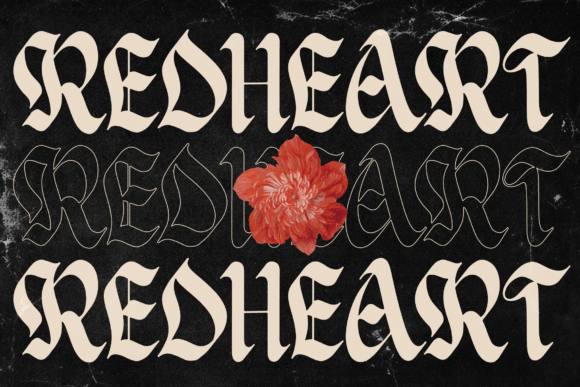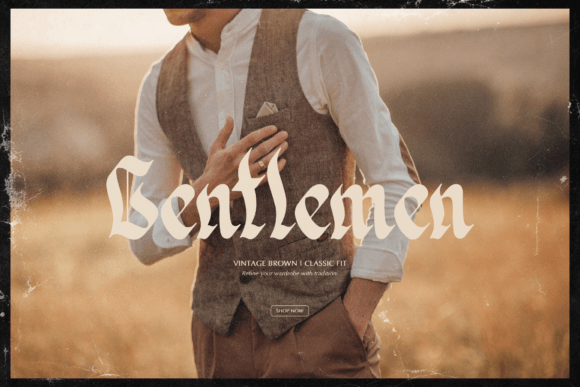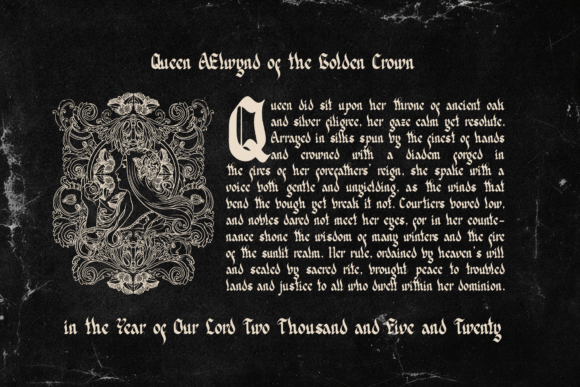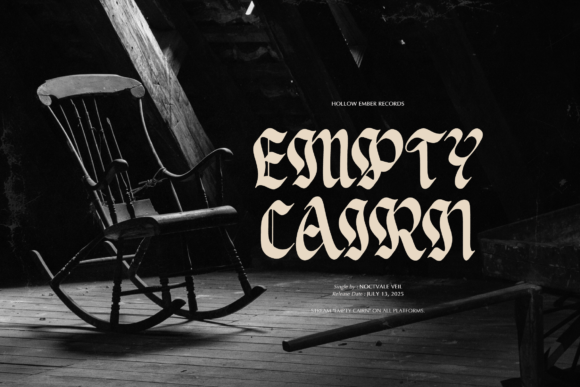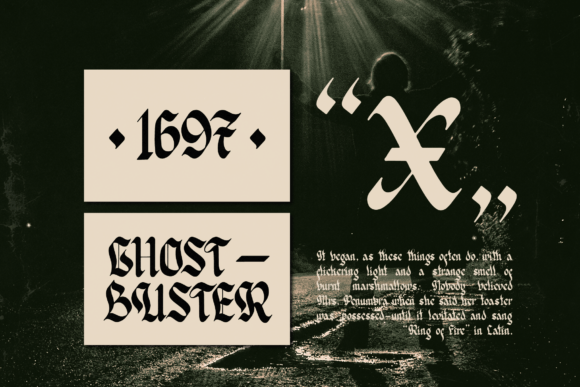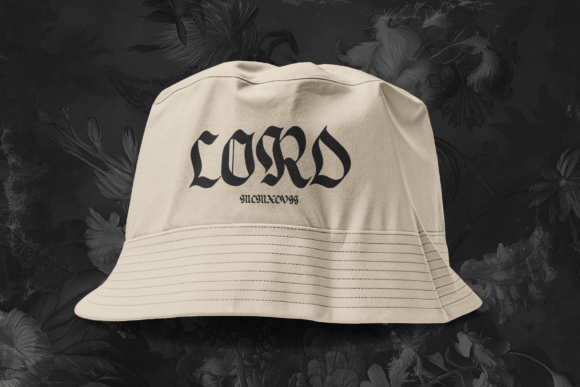
Delkota Font: Elevating Your Creative Projects with Elegance
Have you ever found yourself in a design dilemma, struggling to convey the perfect blend of sophistication and edge in your creative project? Perhaps you’re working on a gothic-inspired album cover, a bold logo, or a striking editorial piece. Whatever your design challenge, you’re not alone – and that’s where the Delkota Font comes in, offering a unique solution that will elevate your work to new heights.
With its sharp strokes, distinctive character shapes, and a dash of medieval flair, the Delkota Font is the perfect design resource for anyone seeking to add a touch of elegance and refinement to their work. Whether you’re a seasoned designer or just starting out, this versatile typeface is sure to become a trusted companion in your creative journey.
Key Features of Delkota Font
- Delkota Font offers a unique and modern aesthetic, making it perfect for designers seeking a creative edge.
Honest Review: Delkota Font
As a designer, I’m always on the lookout for high-quality design resources to elevate my creative projects. The Delkota Font is one such resource that caught my attention, and I’m excited to share my thoughts on it.
- Beautiful, elegant script font with a vintage touch
- Comes in a range of weights, making it versatile for different design applications
- Not suitable for projects that require a bold, sans-serif font
- Some users may find the font a bit too ornate for certain design applications
Overall, the Delkota Font is a great addition to any designer’s toolkit. While it may have some limitations, its unique character and high quality make it a valuable resource for creative projects. Whether you’re working on a wedding invitation, a book cover, or a branding project, the Delkota Font is definitely worth considering.